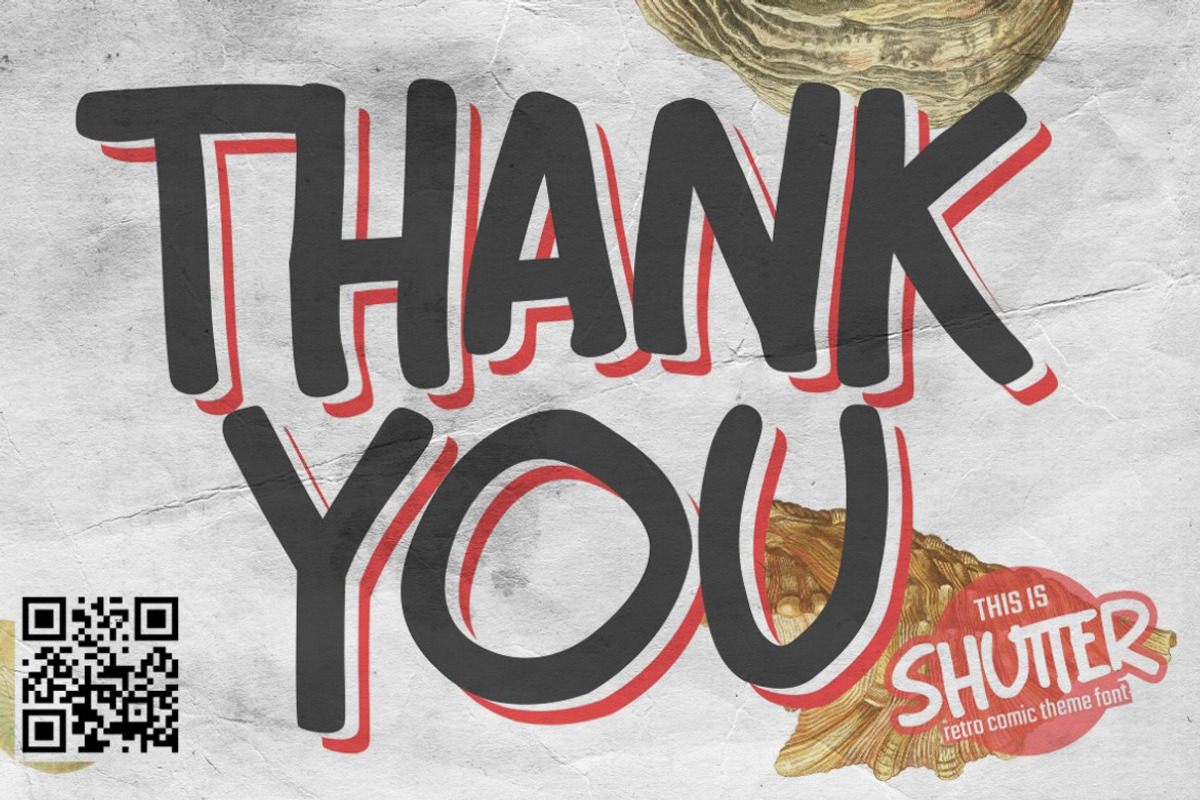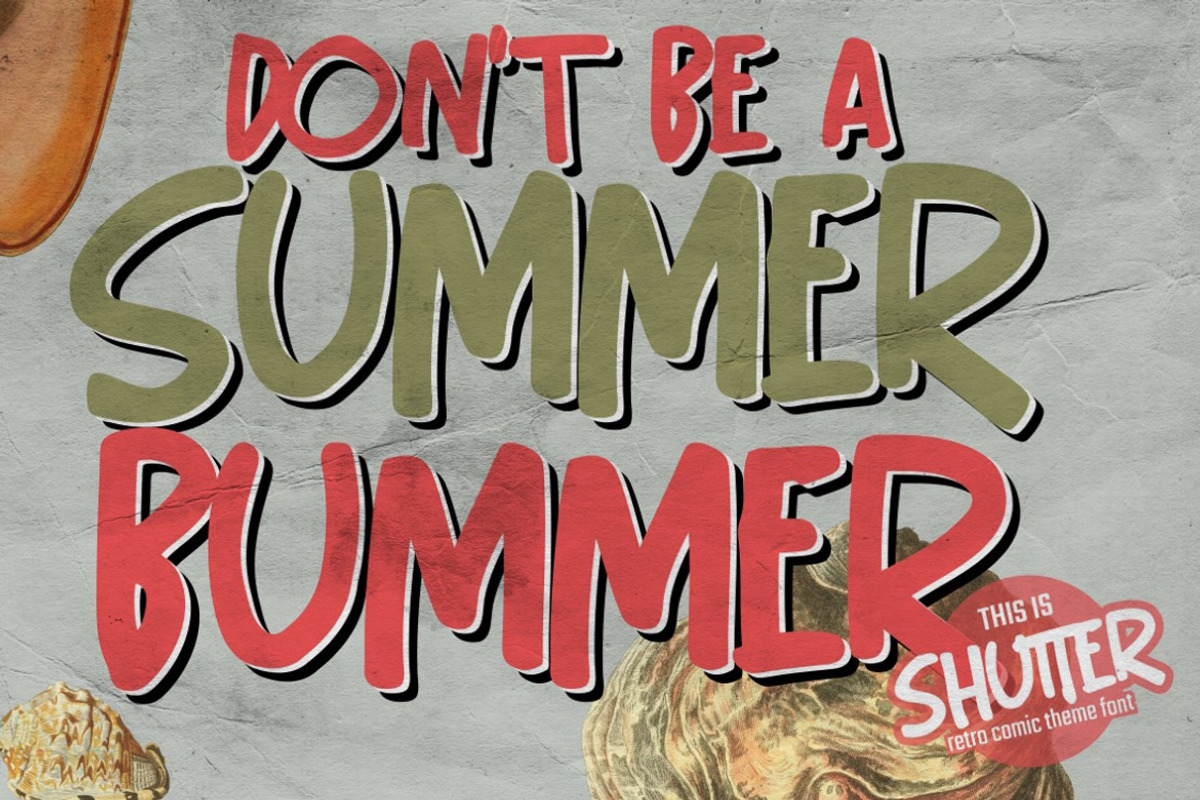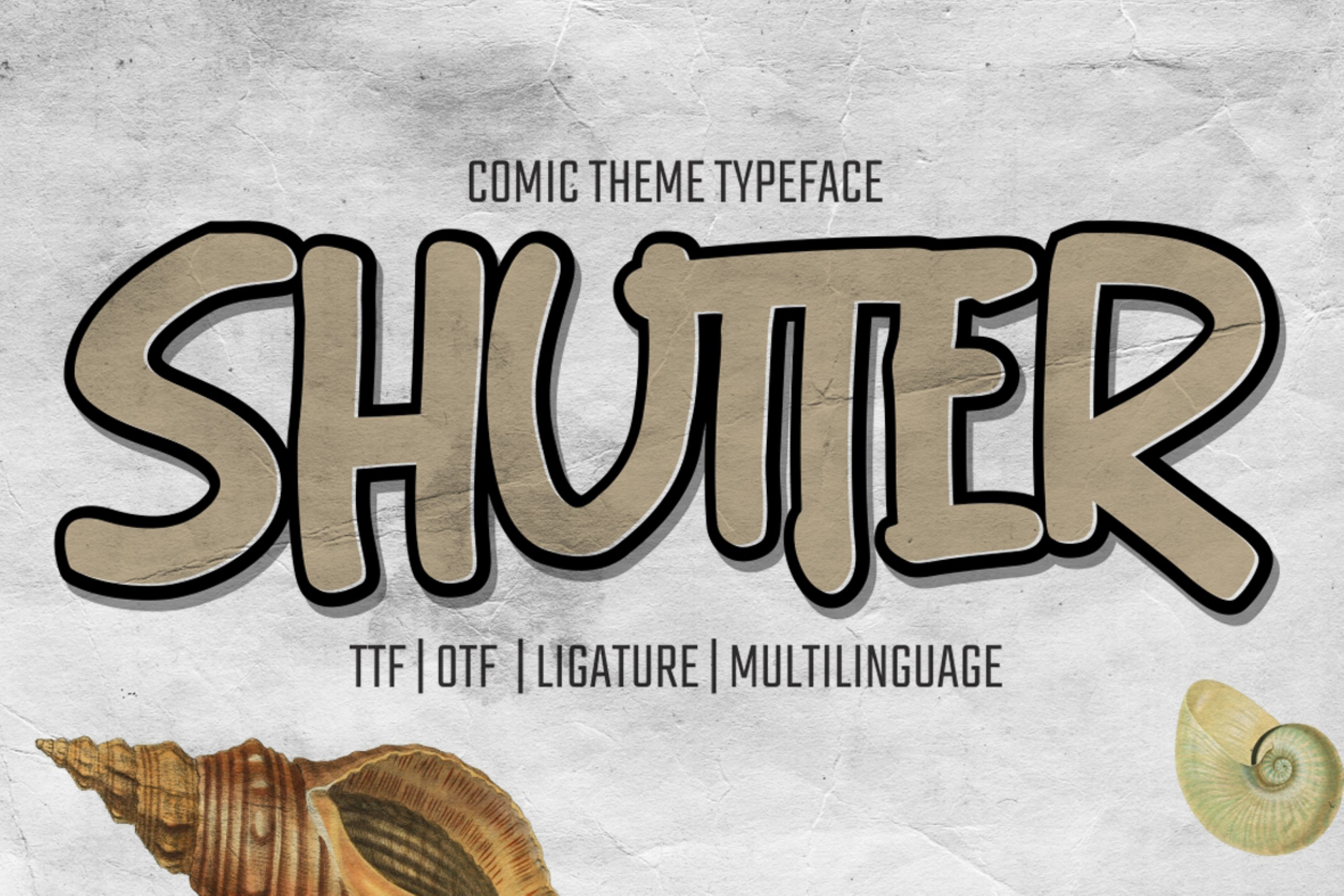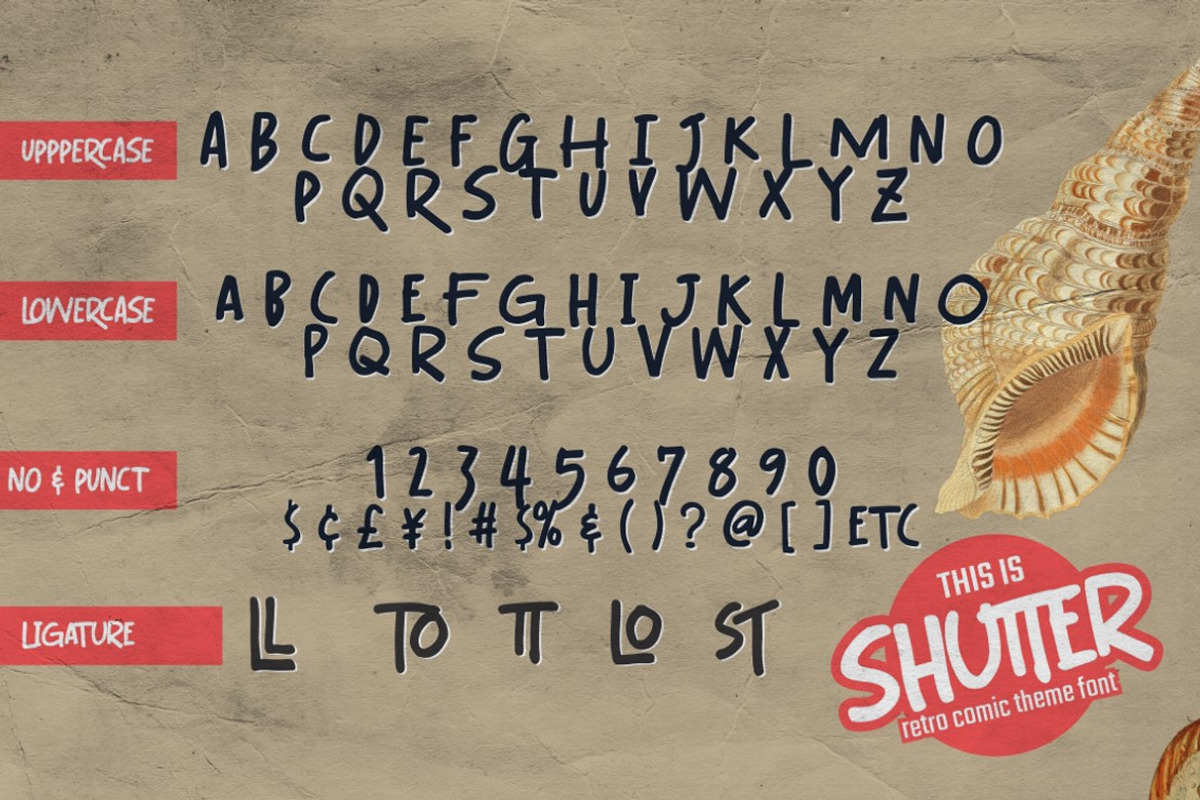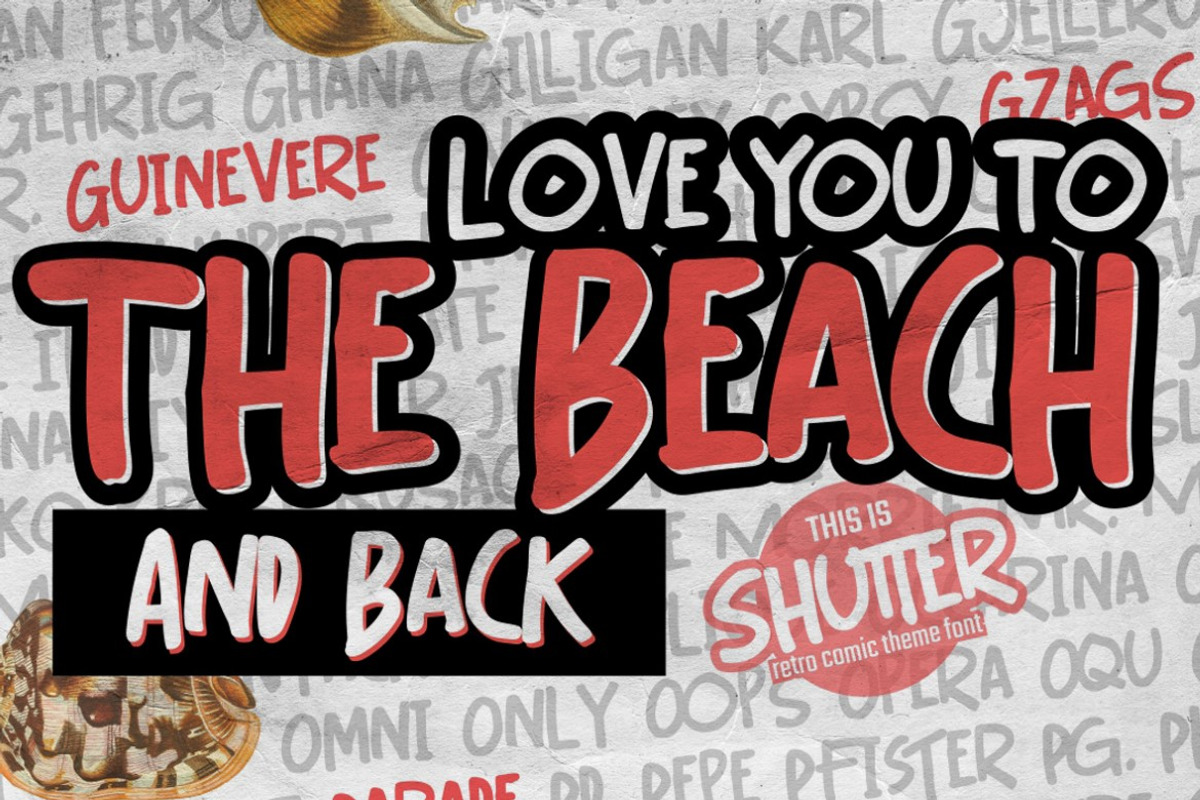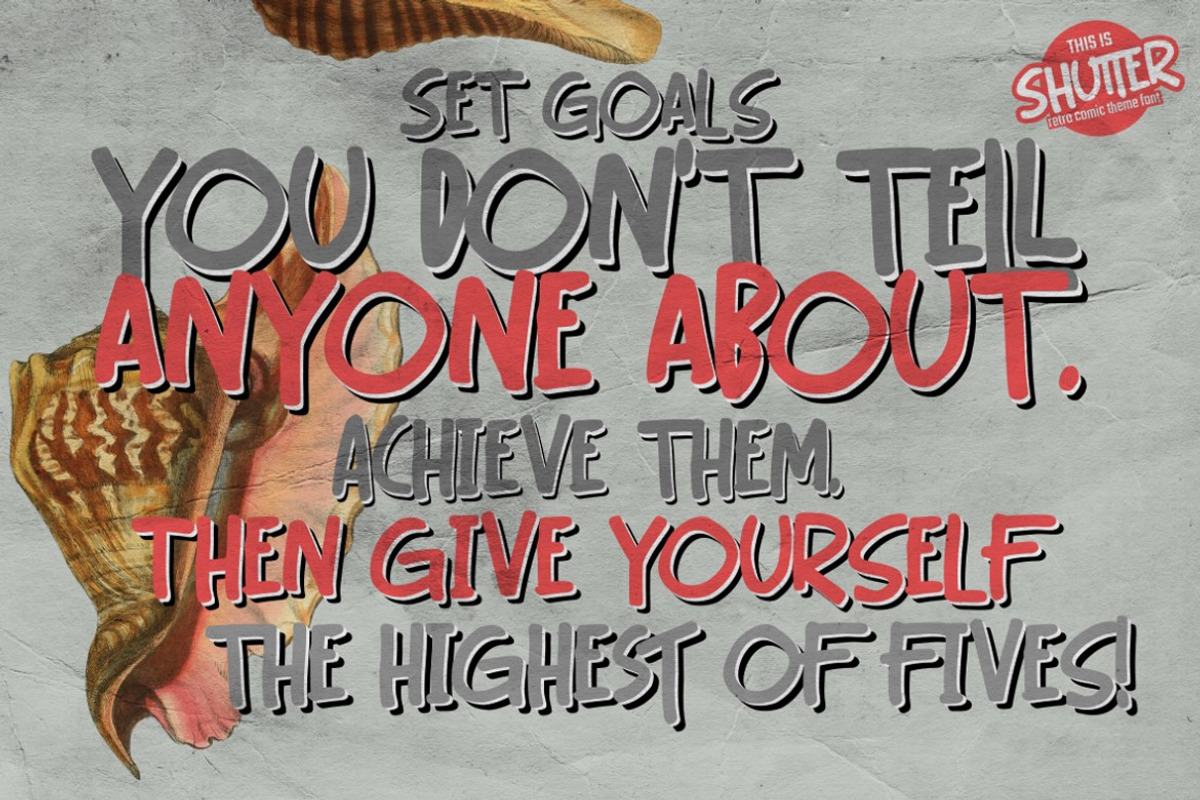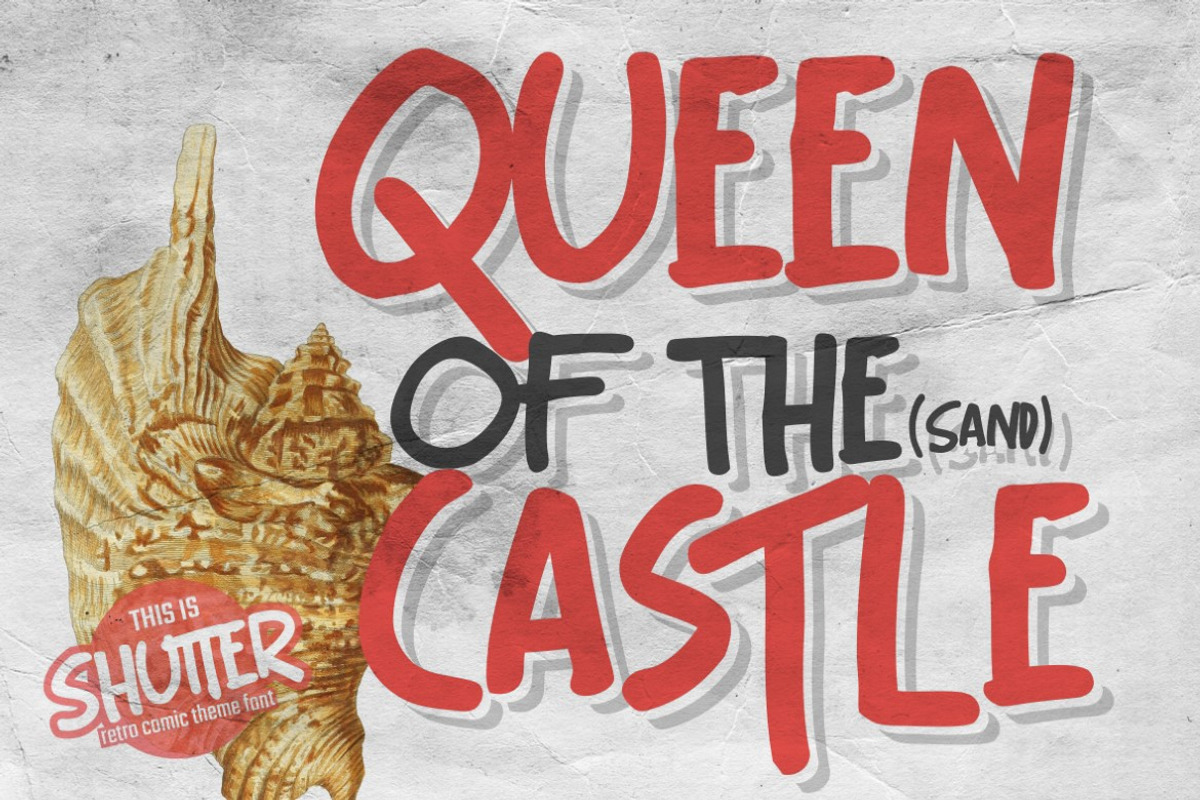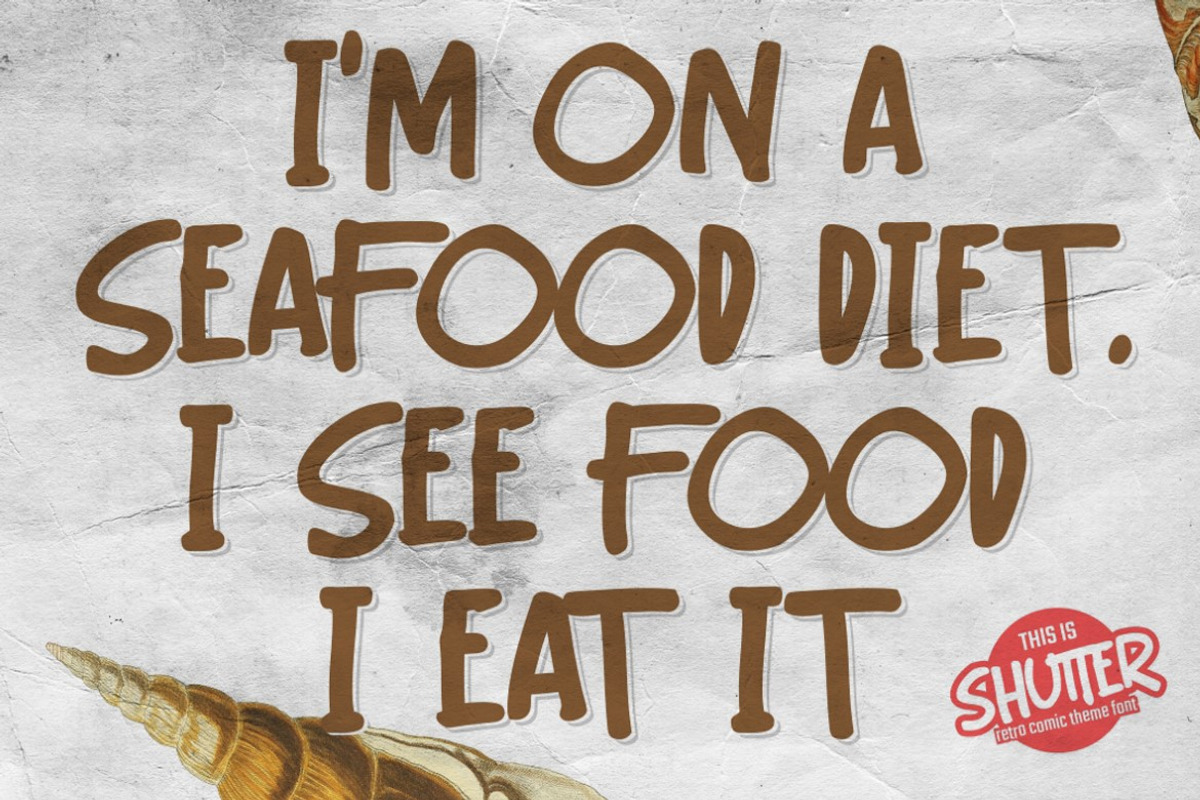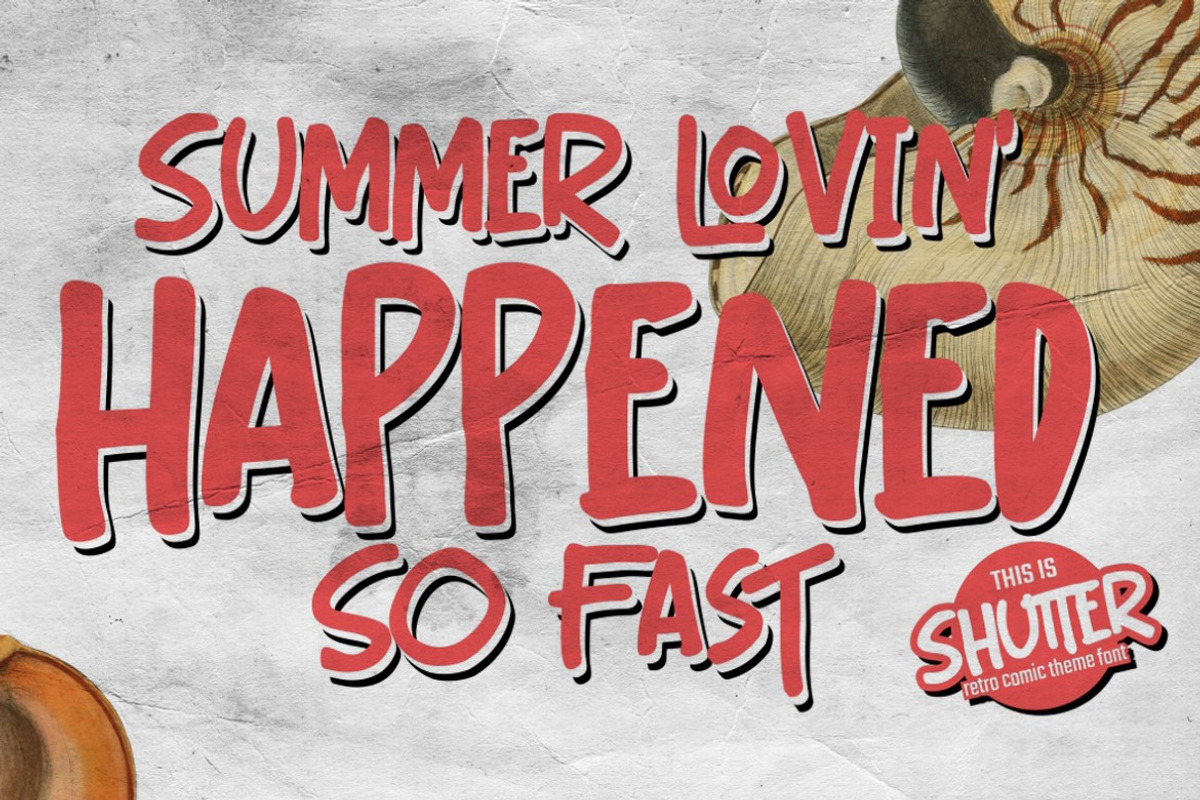
Shutter - Handwritten Brush font
Introducing Shutter is a handwritten brush that is written casually and quickly. Letters are made with brushes on Procreate. Then crafted carefully drawn into vector format. That is why Shutter has charming, authentic and relaxed characteristic more natural look to your text with a more natural look to your text. Shutter is perfect for homeware designs,branding projects, Logo design, Quotes product packaging